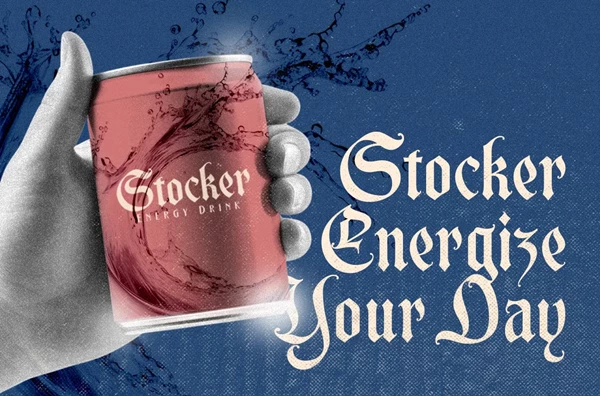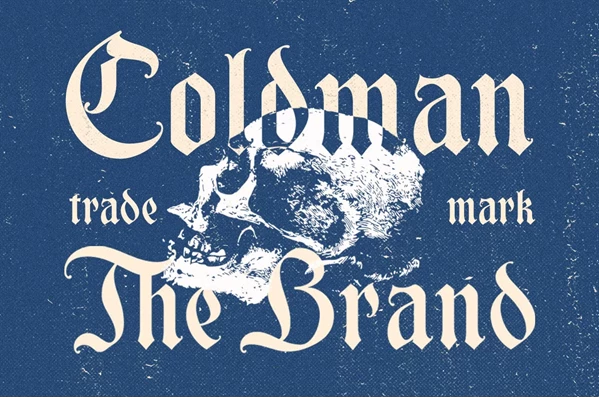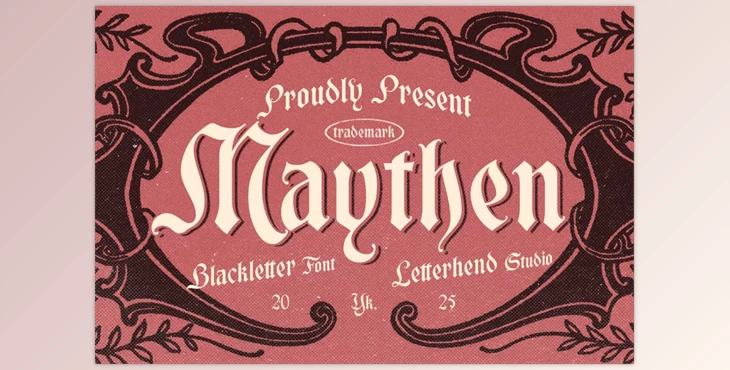
Maythen Blackletter Font:
Classic Maythen was made as an addition to Excelsior typeface and, besides regular, bold weight, contains Slant, Narrow, and Extra from the DeskLabel family, all put in one ClearType font. This may seem like a mistake, but my bold letters are softer with Western-style serif typefaces, displacing a modern slab serif and elegant forms set. In Maythen, the rigid contours and angles yield softer curves, enhancing the sense of rhythm. Sophisticated letter structure teamed with the sharp fragility of thin strokes creates a construction of unique beauty and integrity.
Some great features of Maythen Blackletter Font:
- Supports a full range of upper and lowercase letters users may wish to use.
- Includes numbers and all punctuation marks.
- It contains alternates and ligatures so users can be creative.
- Supports multiple languages for more versatile use.
"Maythen Blackletter Font" Samples: